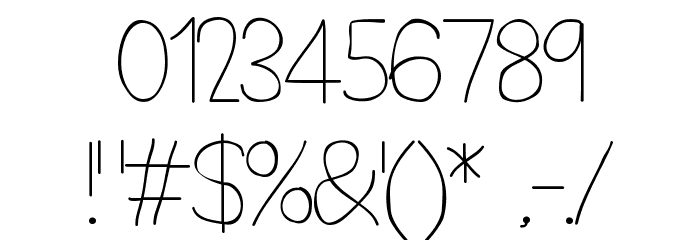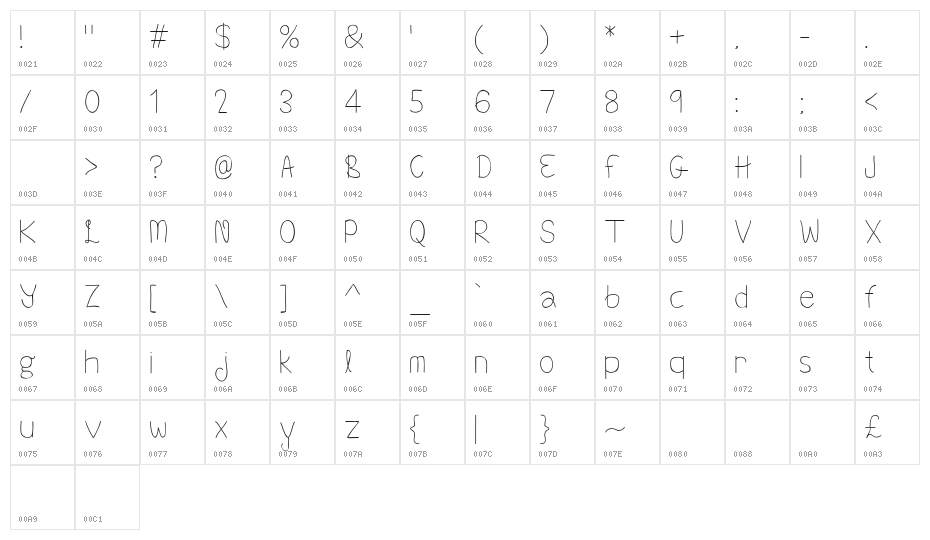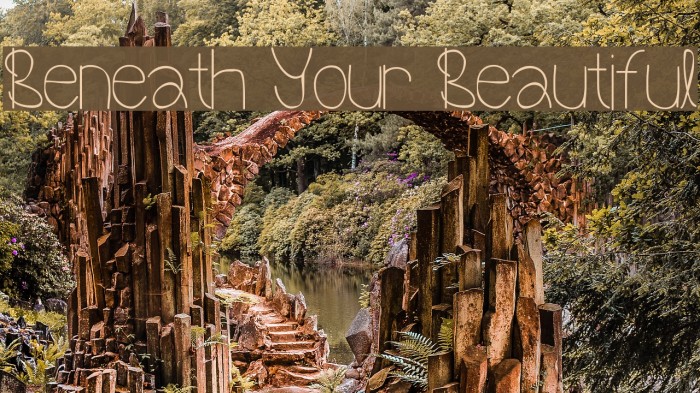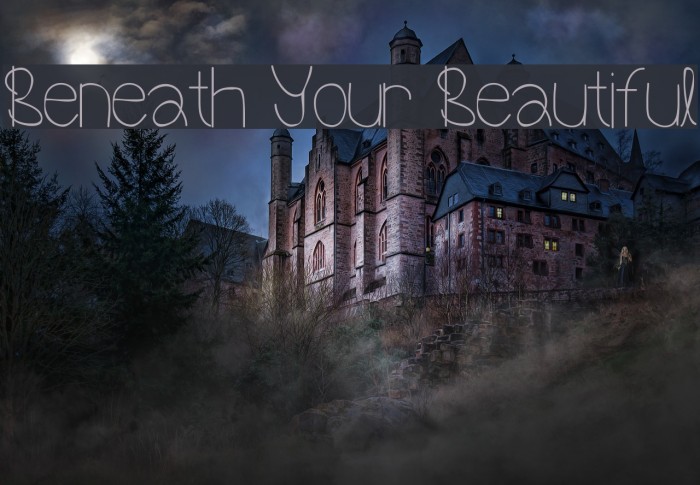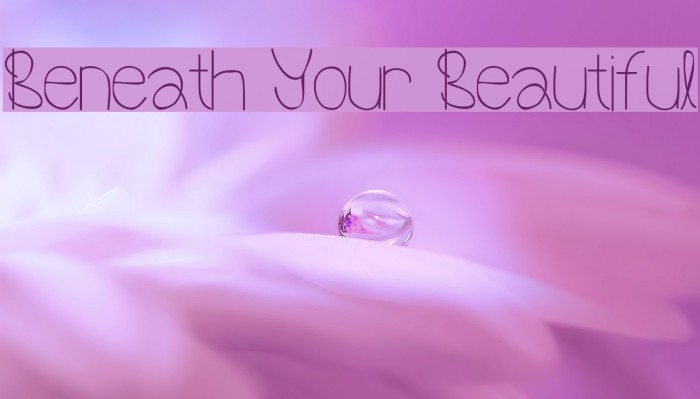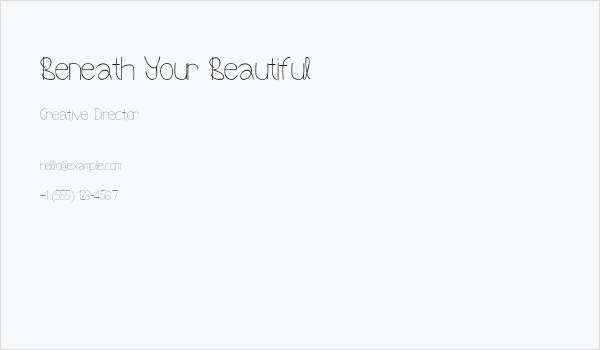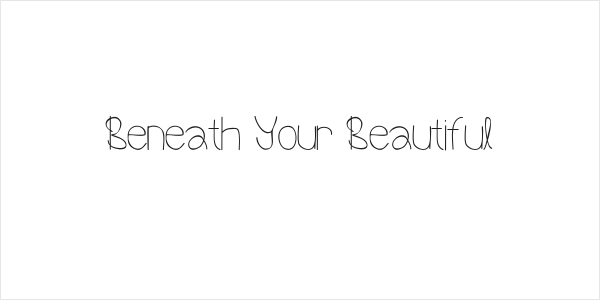
Beneath Your Beautiful Font
Beneath Your Beautiful Description
This font features a playful and whimsical design with a handwritten style. The characters are elongated and slightly irregular, giving it a casual and informal appearance. The strokes are thin and consistent, creating a light and airy feel. The uppercase and lowercase letters maintain a cohesive look, while the numbers and special characters blend seamlessly with the overall style. This font's unique personality makes it suitable for creative projects that require a touch of individuality and charm.
| Overall Style | Whimsical and casual |
| Use Case | Creative projects, informal designs, and playful text. |
| Proposed Projects | Ideal for greeting cards, children's books, playful branding, and creative invitations. |